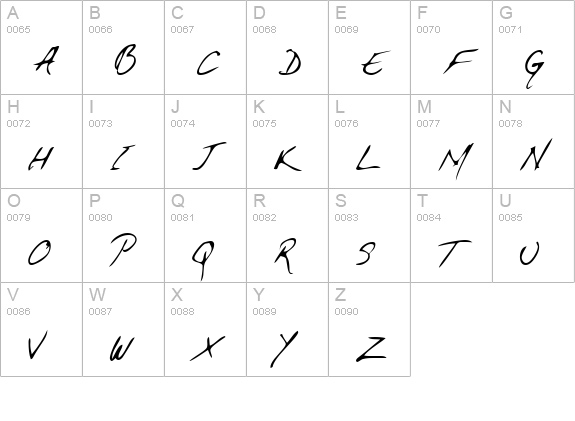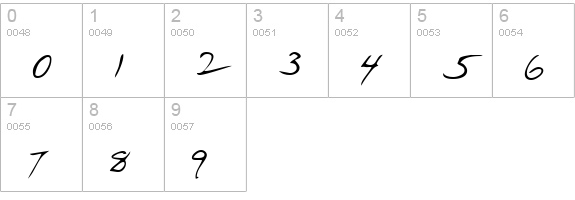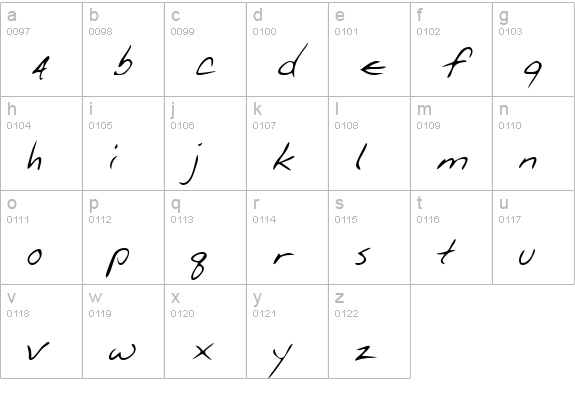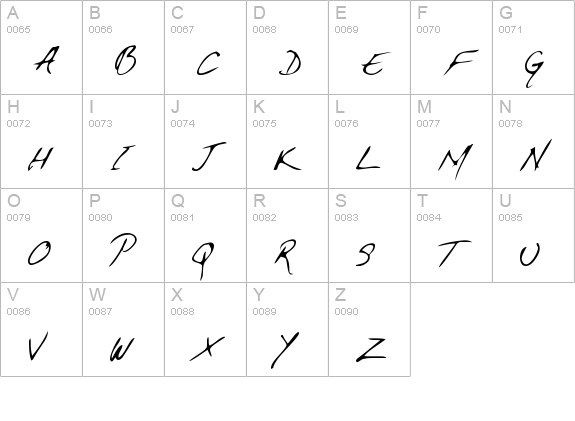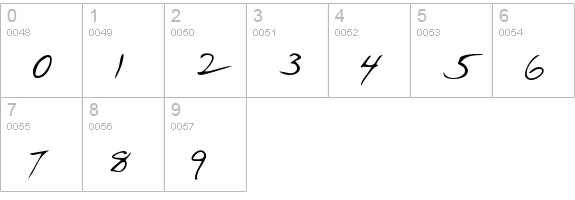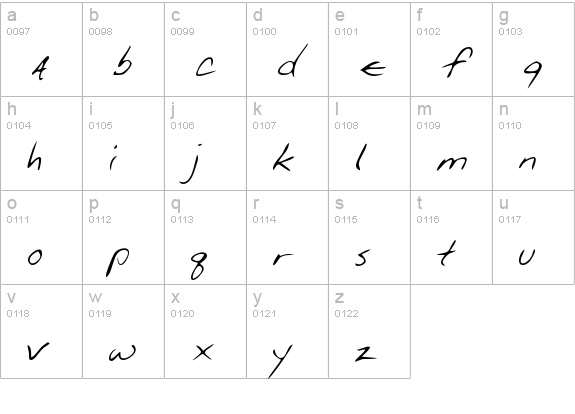
GiffordsHand Regular is the standard, neutral variant in the GiffordsHand typeface family \xE2\x80\x94 well suited to general body text, paragraphs, and standard typographic work.
GiffordsHand Regular font is a charming and versatile typeface that exudes a warm and friendly feel. With its handwritten style and elegant curves, this font is perfect for adding a personal touch to your projects. Whether you're creating invitations, greeting cards, posters, or branding materials, GiffordsHand Regular will surely make your text stand out. The best part? GiffordsHand Regular font is completely free to download at FontsMarket.com. So, you can easily access this beautiful font and use it in your designs without any cost. Don't miss out on the opportunity to enhance your creations with the unique and lovely GiffordsHand Regular font - download it today and let your creativity flow!